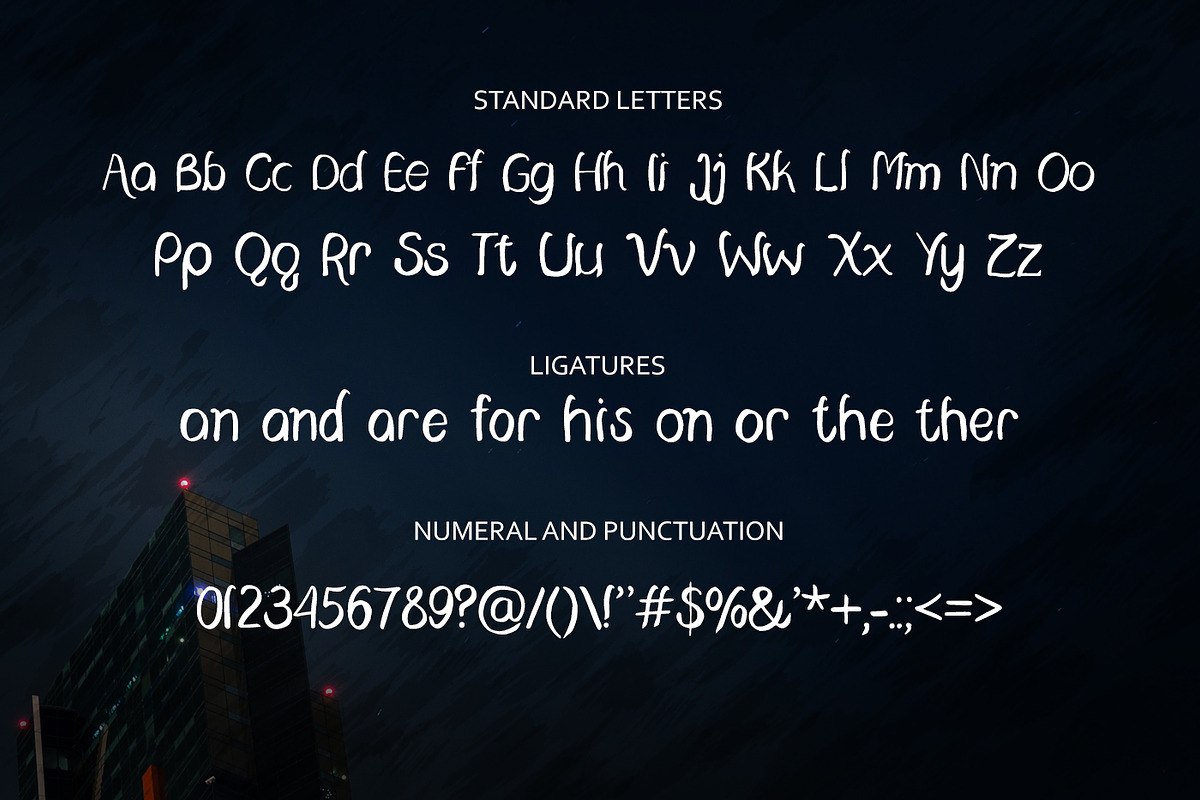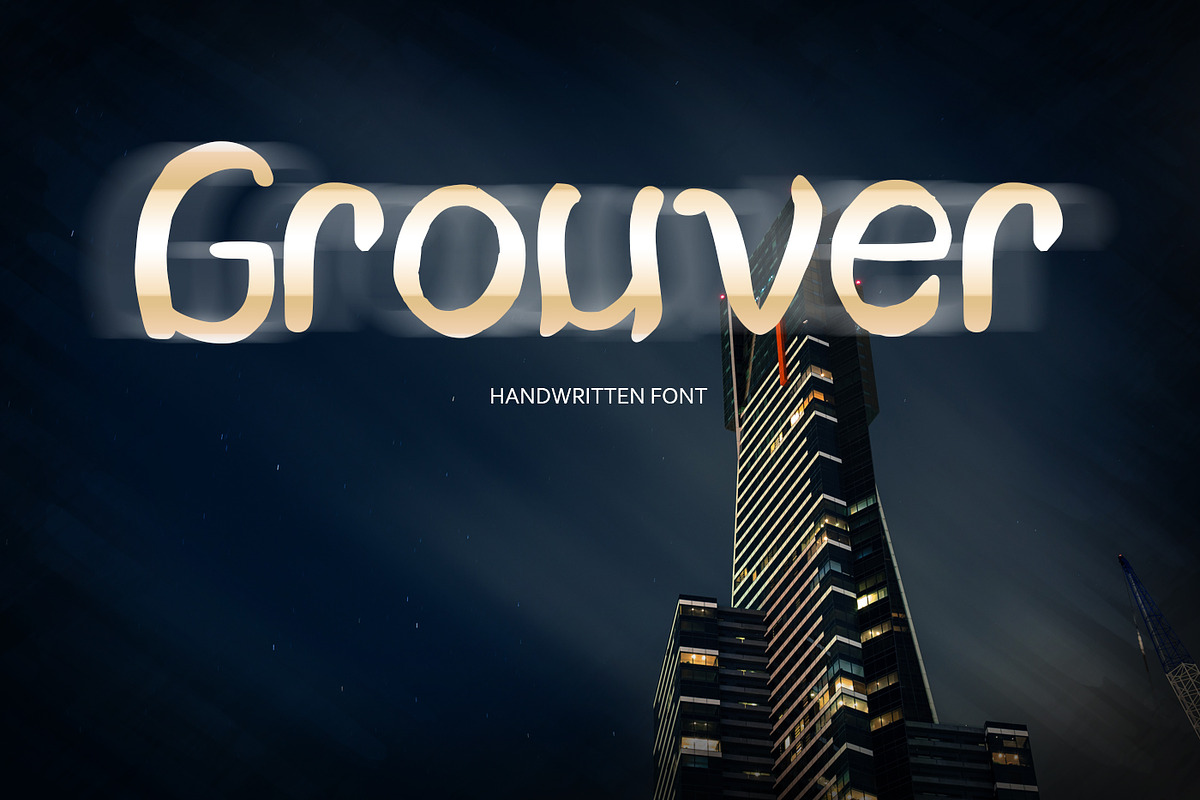
Grouver Font
Grouver Font by DmDesignsStoreArt is a font selected for branding, posters, packaging, typography.
Why Grouver Font is worth a look
Grouver Font by DmDesignsStoreArt fits naturally into Branding, posters, packaging, typography.